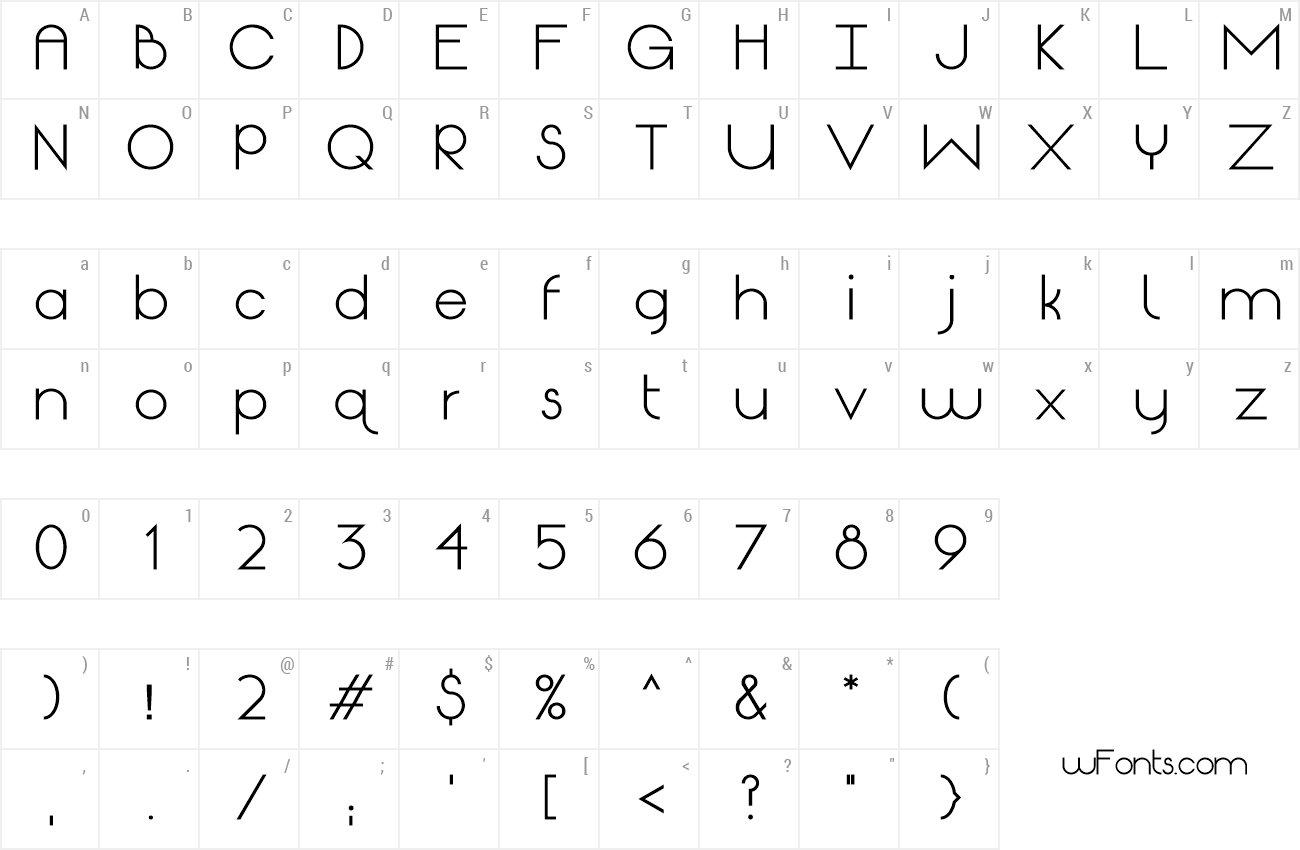
Review Of Origin Of Fonts 2022. Typefaces have been impacted throughout history by technological. It comes from the days of metal type in printing presses.
An overview of the origin of typography and the popular fonts origin of typography. Chinese typography letters typography design lettering alphabet list unique fonts. Soon, though, designers felt that calligraphy characters didn’t feel right.
This Is The Traditional Stencil Font, First Designed In The 1930S For Metal Typography At The Ludlow Typograph Company In Chicago.
Font (n.2) complete set of characters of a particular face and size of printing type, 1680s (also fount ); It comes from the days of metal type in printing presses. In european alphabetic scripts, i.e.
It Has A Relaxed, Appealing Design And Is Ideal.
It Has Many Manifestations In The Digital Realm,.
So You Could Have A Roman Typeface In 12 Point Italic Font.
As its name suggests (based on ‘helvetia’, the latin word for ‘switzerland’), helvetica was created in switzerland, when eduard hoffmann, director of the. “font” (as in typography) comes from the old french fondre, meaning “melt,” from the latin fundere “melt, cast, pour out,” as in the pouring of metal into moulds. Chinese typography letters typography design lettering alphabet list unique fonts.
However, Many Designers Now Use.